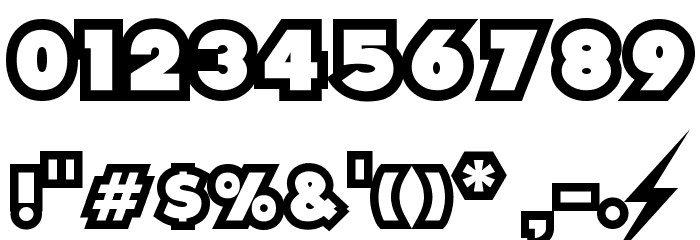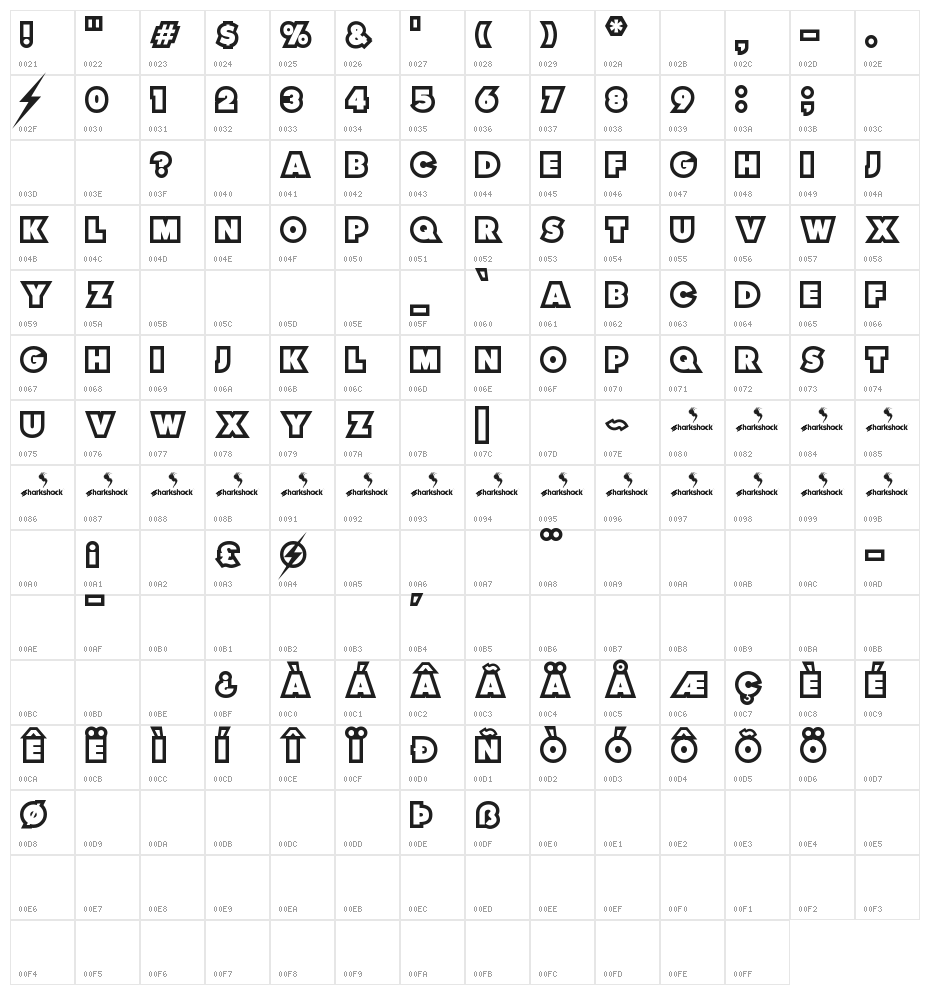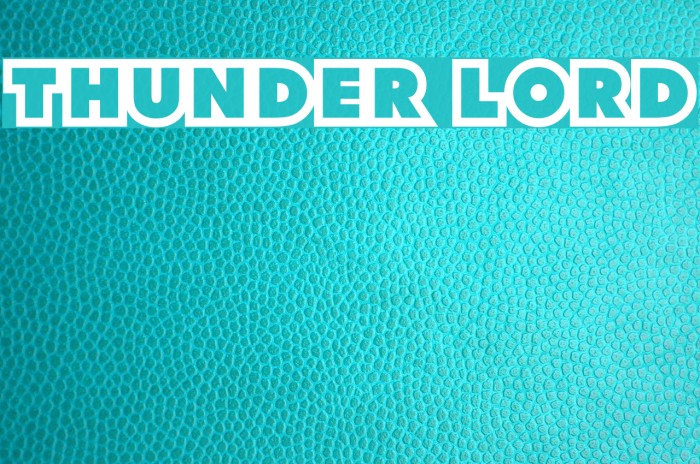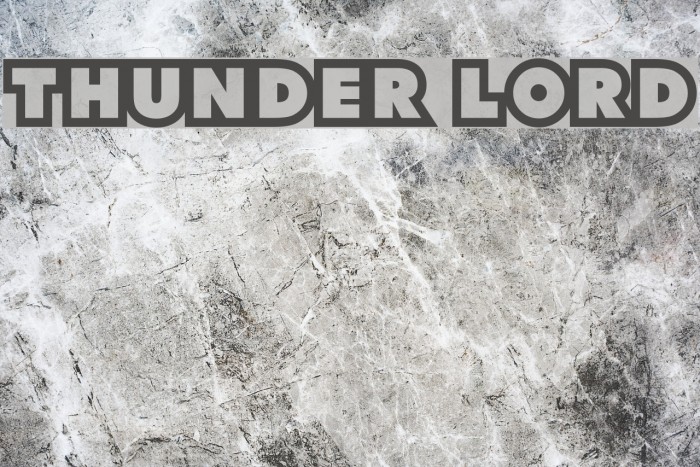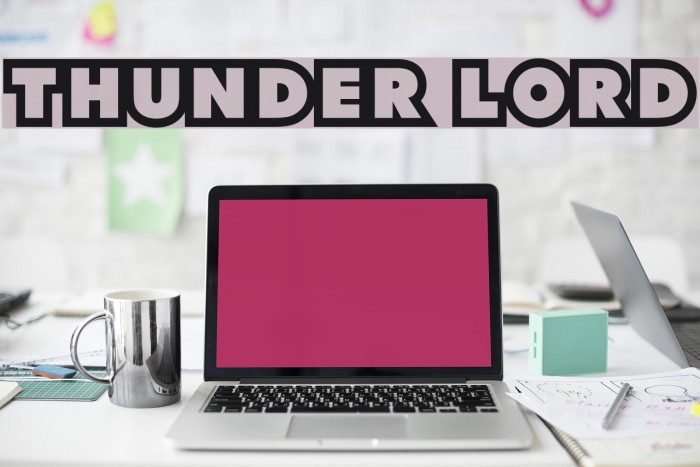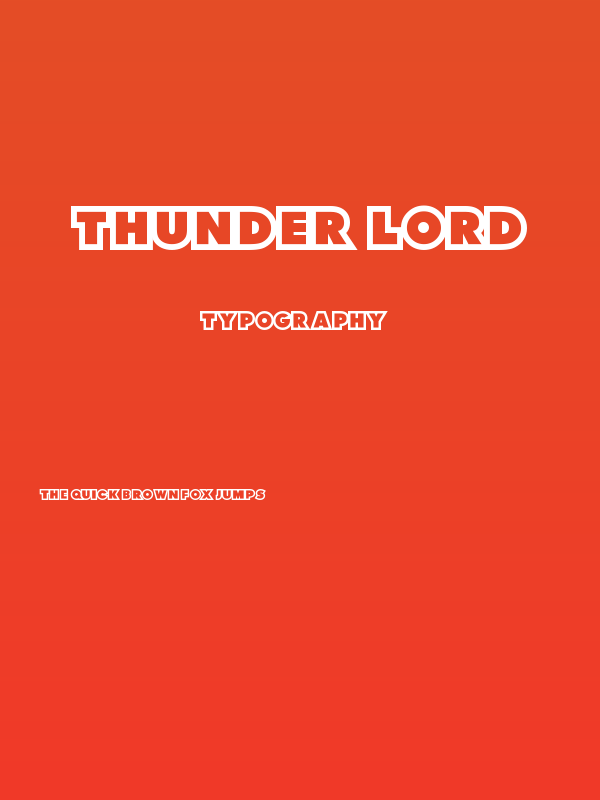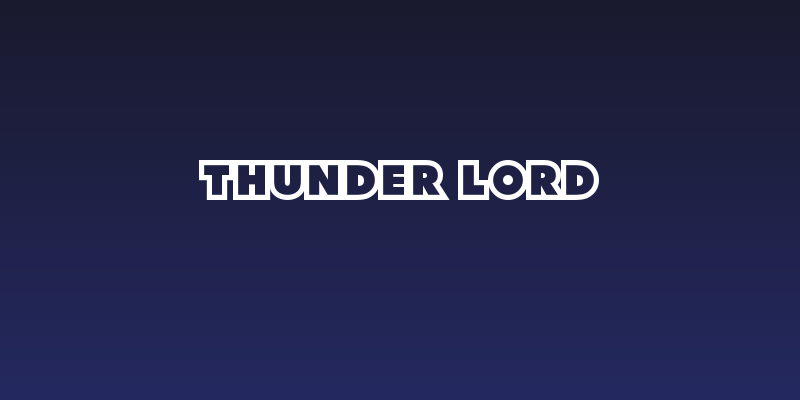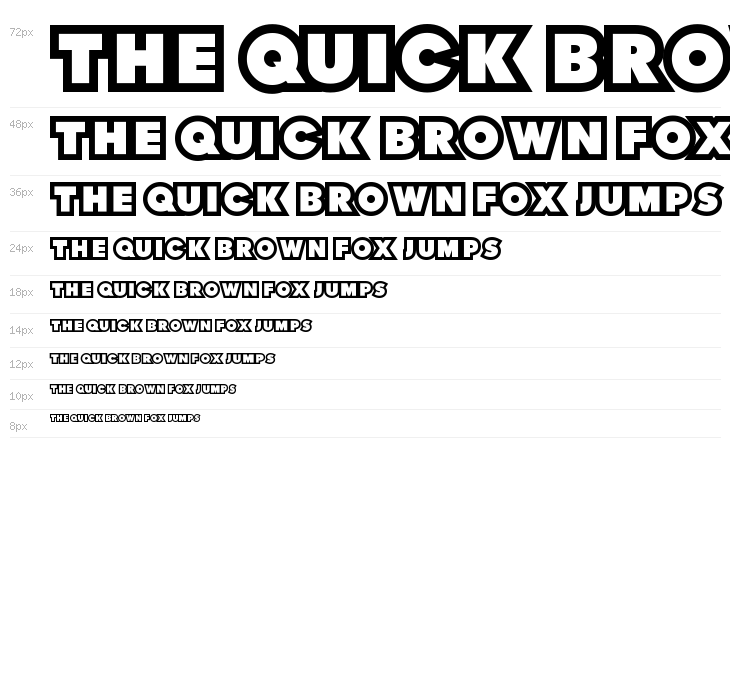
Thunder Lord Font
Thunder Lord Description
This font is a bold, impactful display typeface characterized by its thick, blocky letters with a strong outline. The uppercase letters are uniform in height, creating a sense of stability and strength. The numbers and special characters maintain the same boldness, ensuring consistency across all glyphs. The font's design is reminiscent of comic book or superhero themes, with a playful yet commanding presence. Its high contrast between the thick strokes and the inner spaces makes it highly legible from a distance, ideal for attention-grabbing headlines or titles.